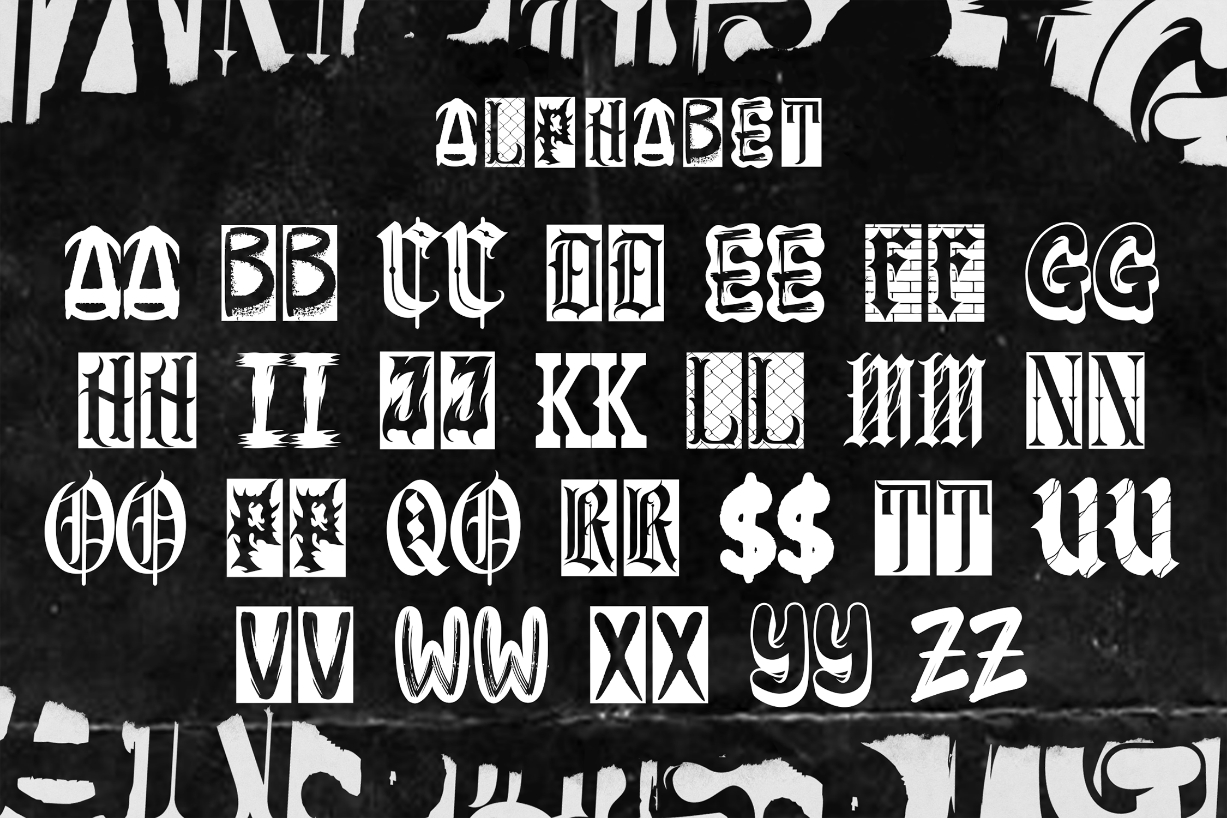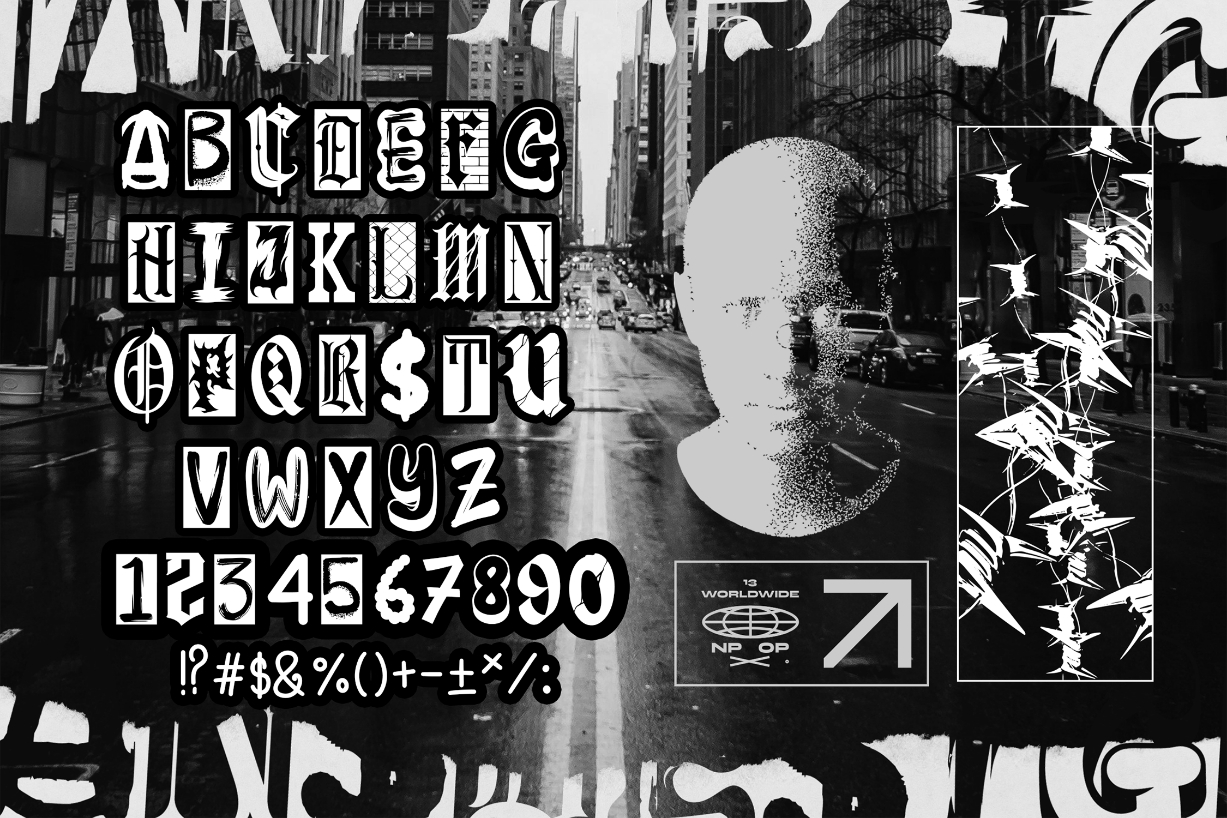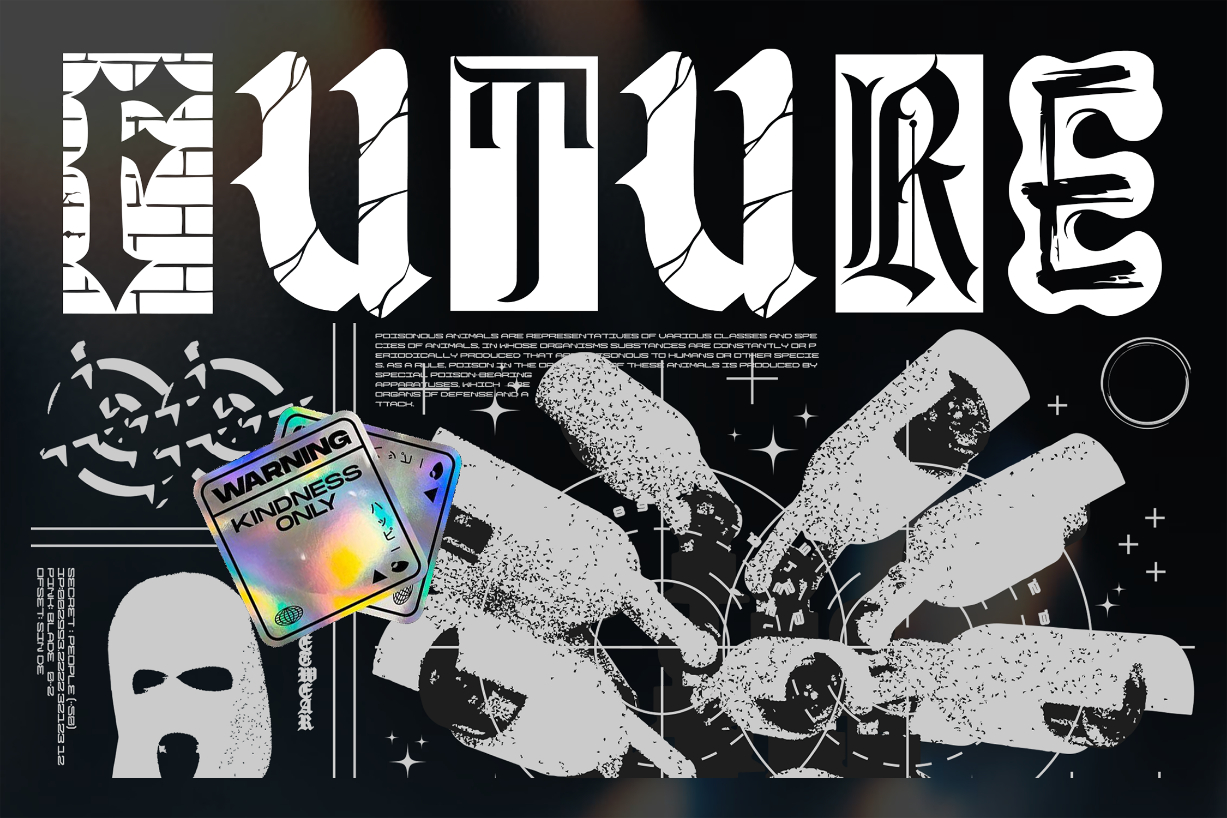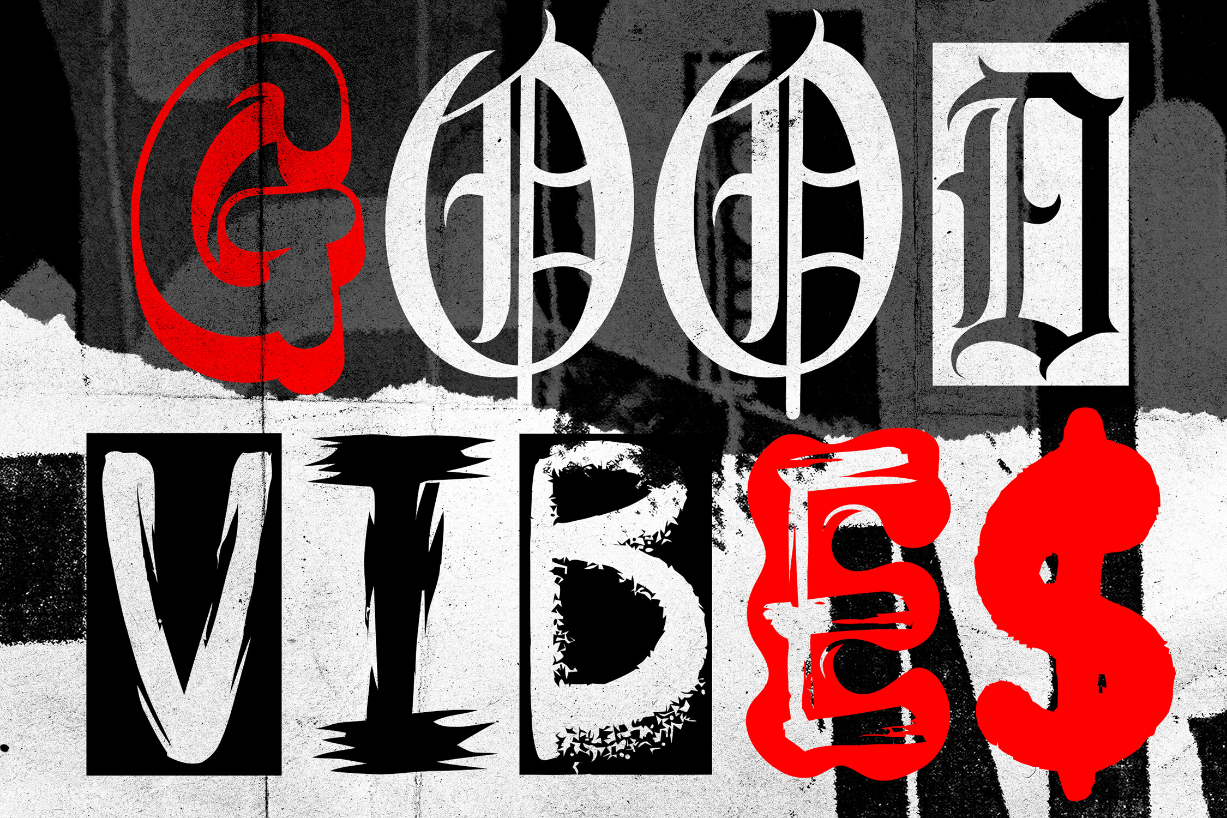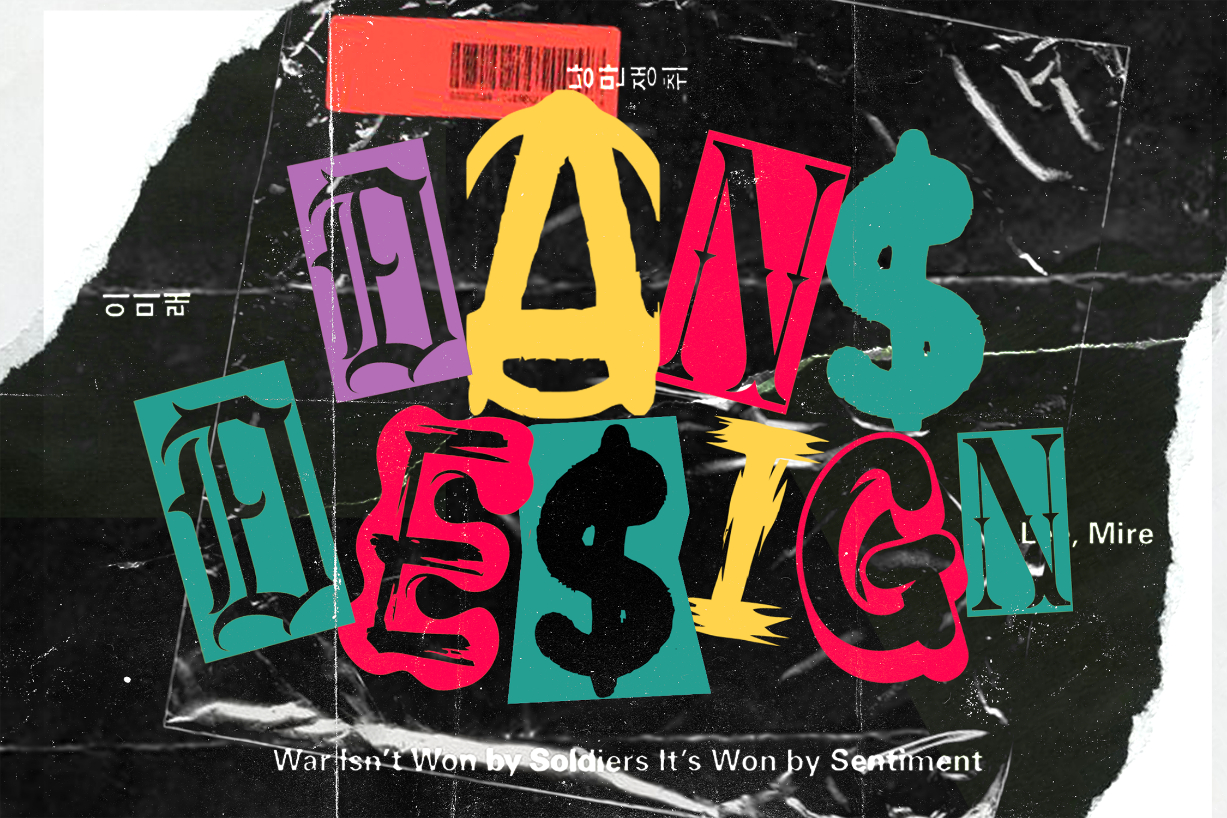
Rebel Frisco Graffiti Urban Y2k Font
About Rebel Frisco Graffiti Urban Y2k Font
REBEL FRISCO Graffiti Urban Y2k Font is a distinct and highly detailed typeface. GRAFFITI Urban Display Font. It would make a great choice for exquisite retro-urban designs, business branding, logos, Apparel designs, and more.